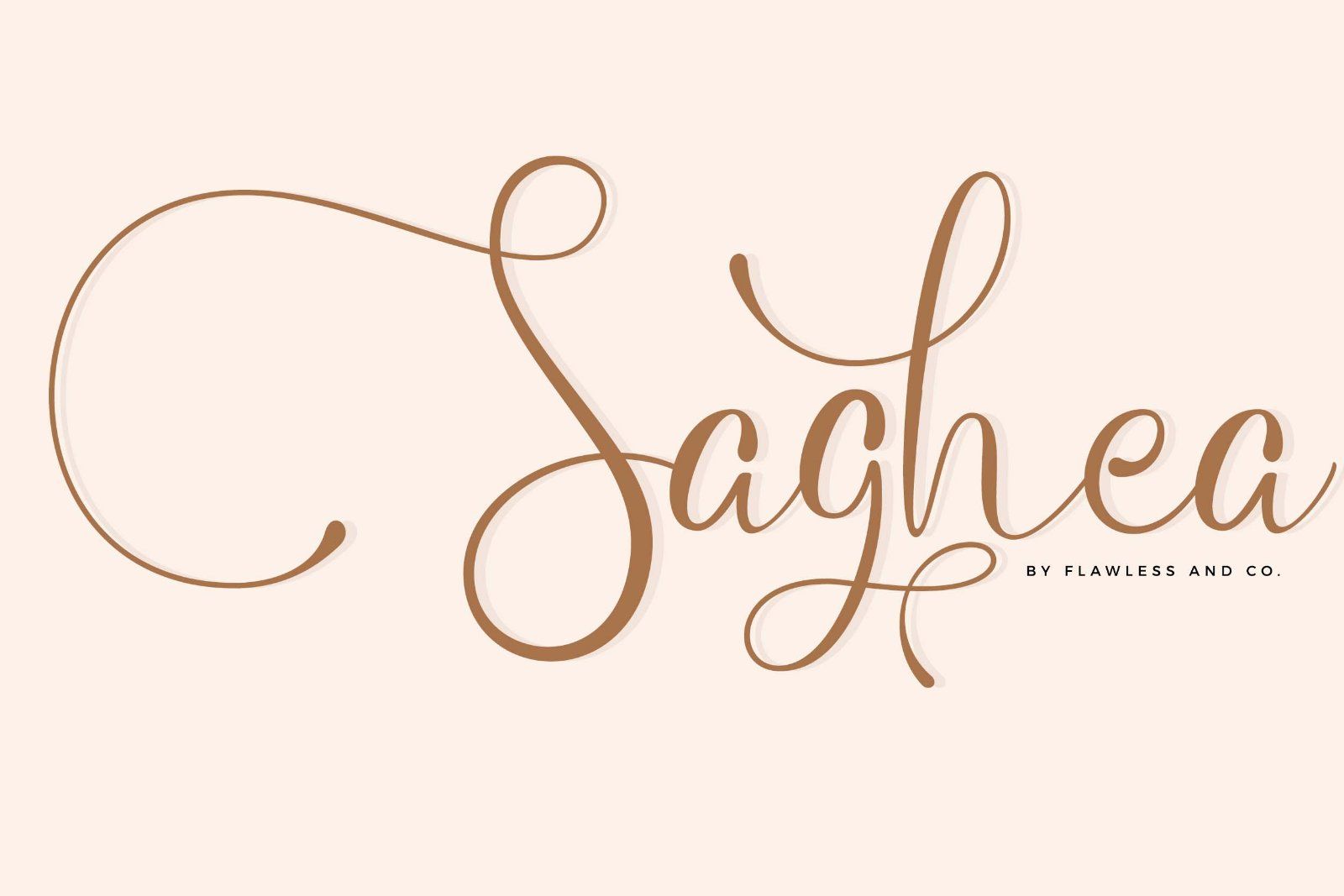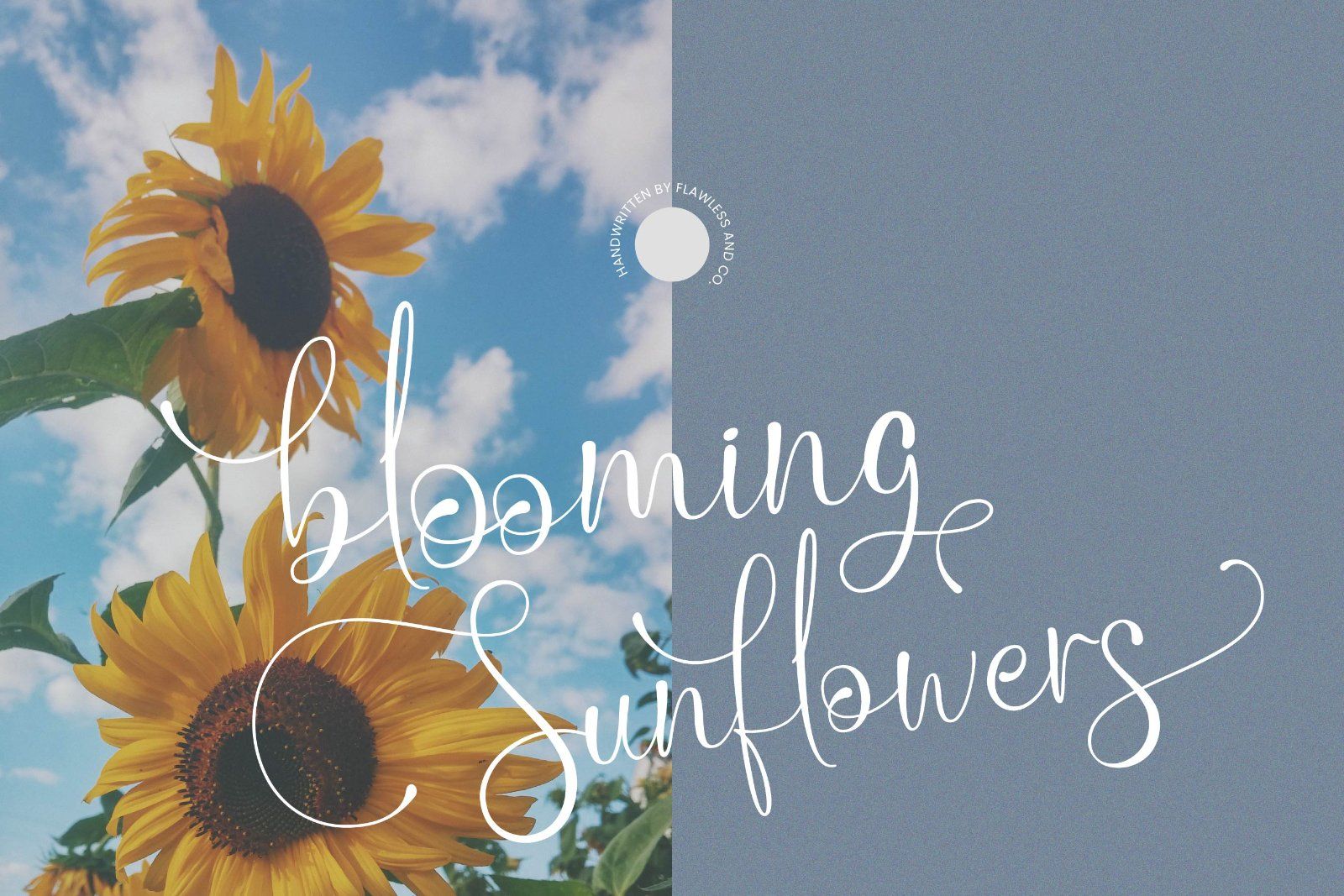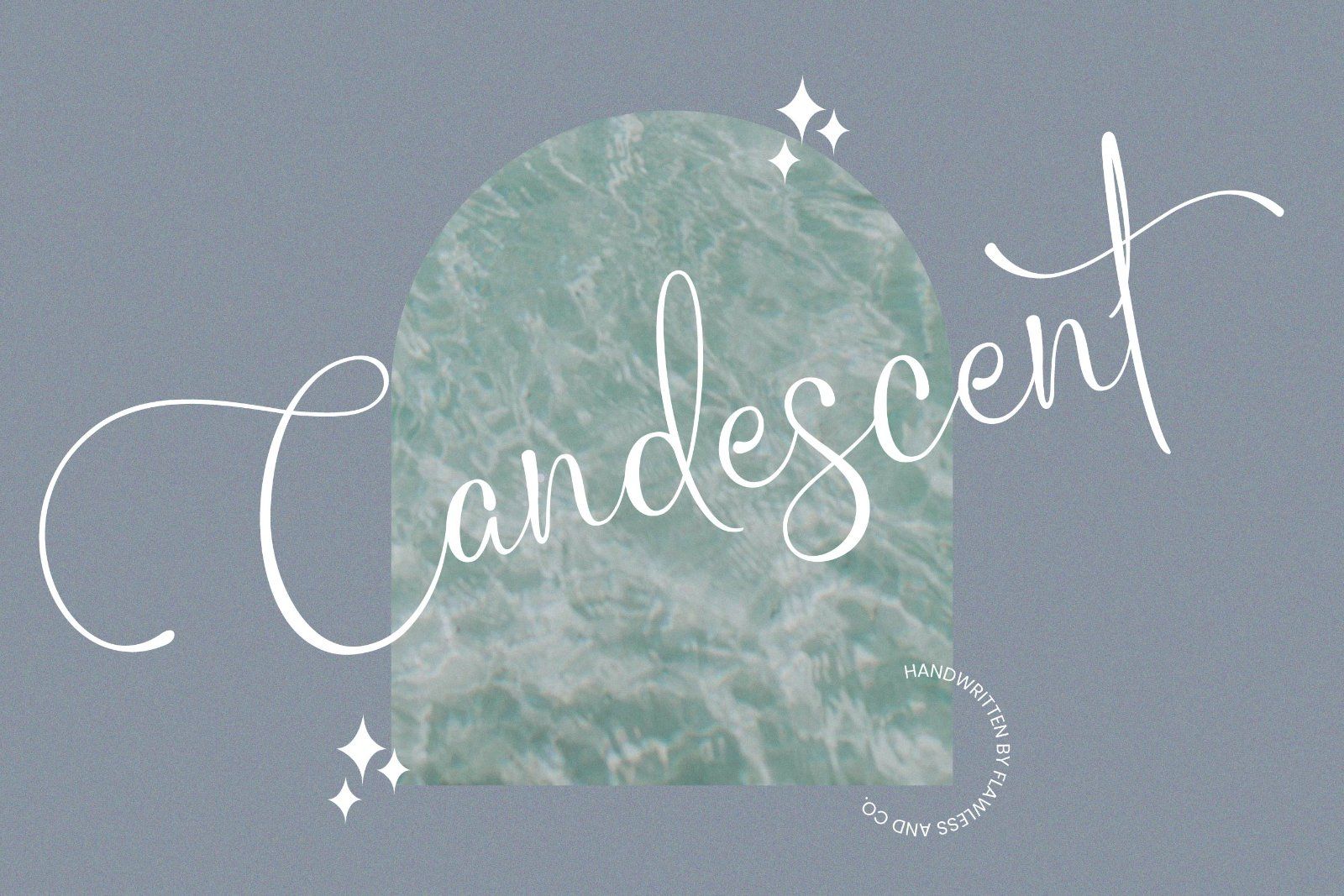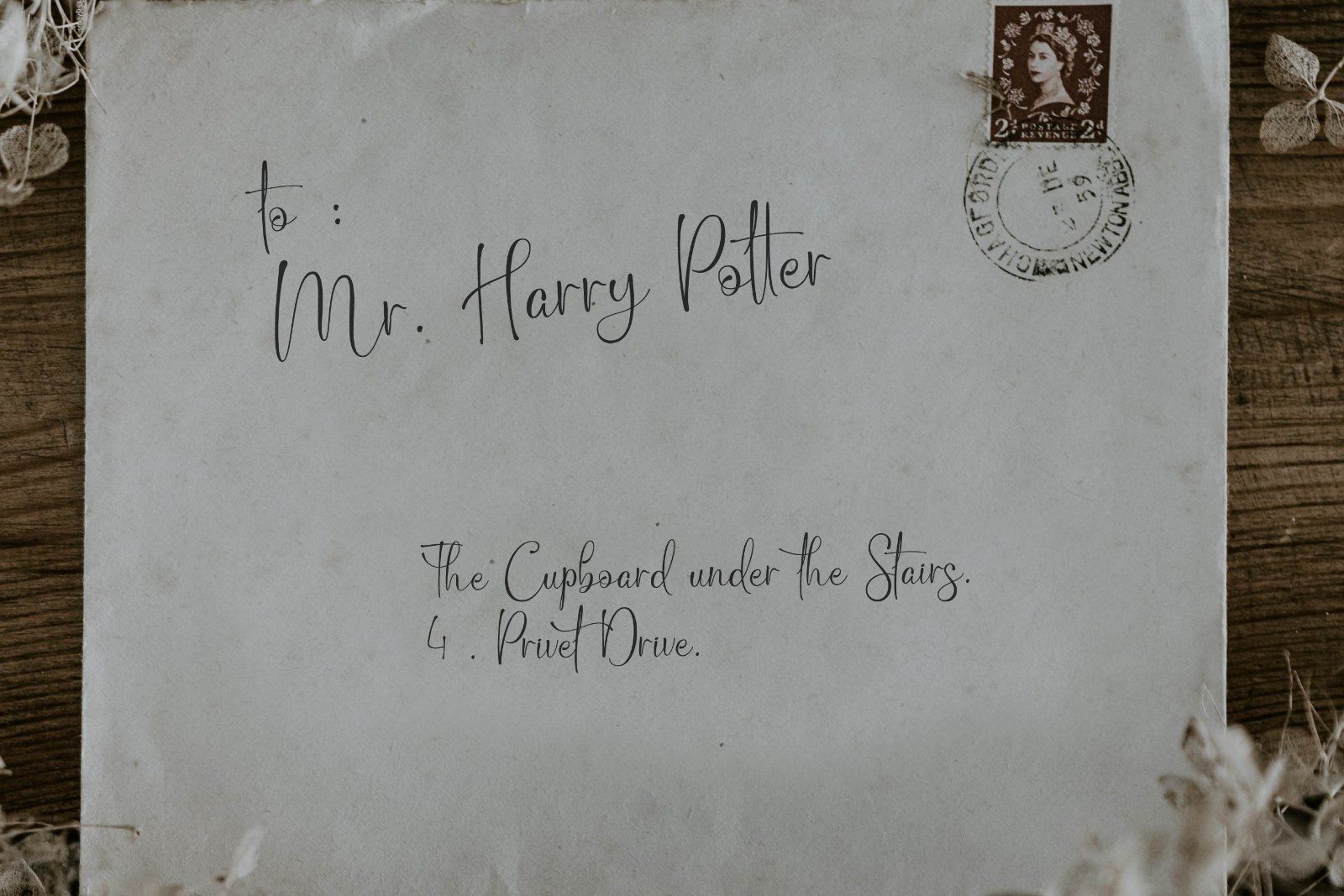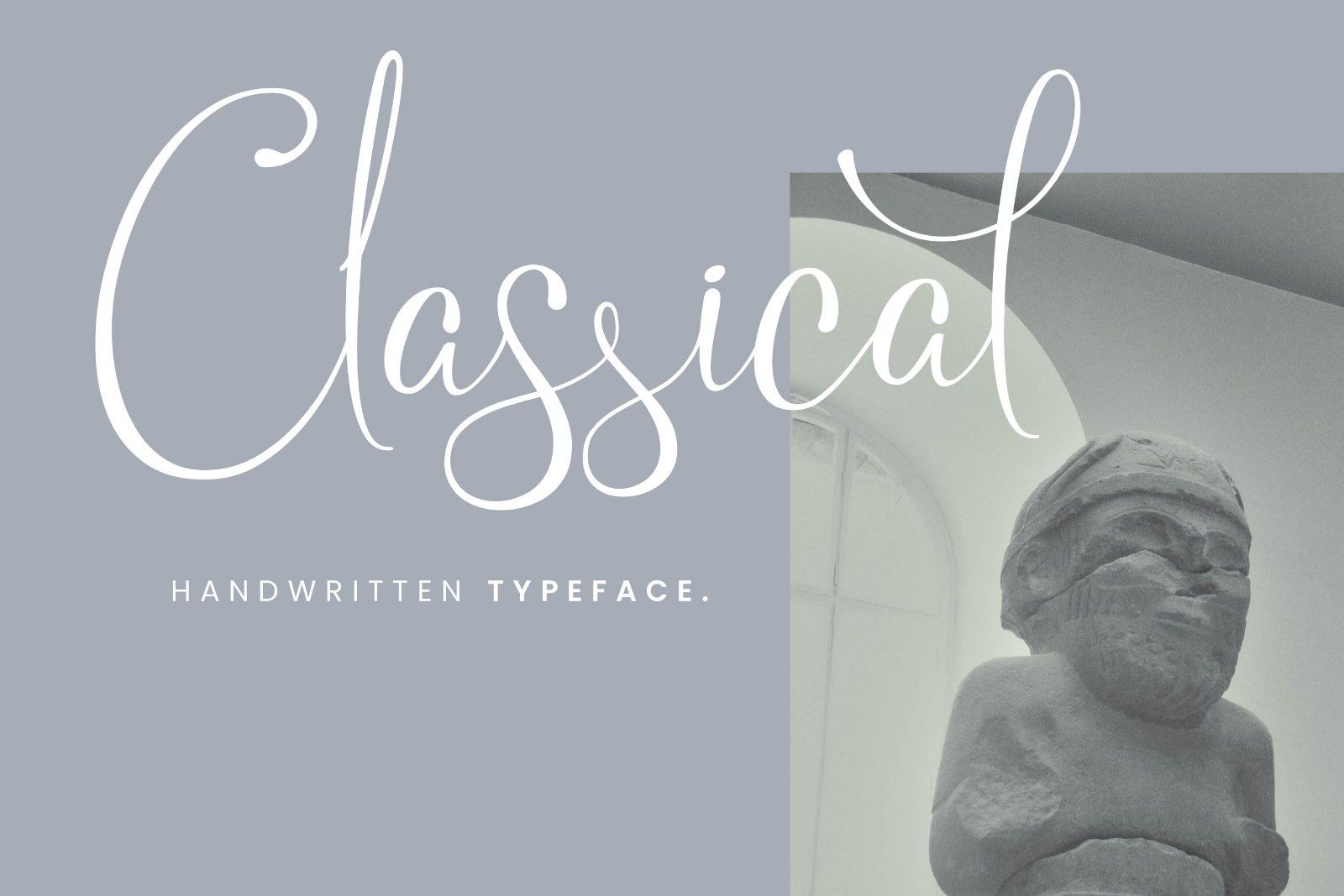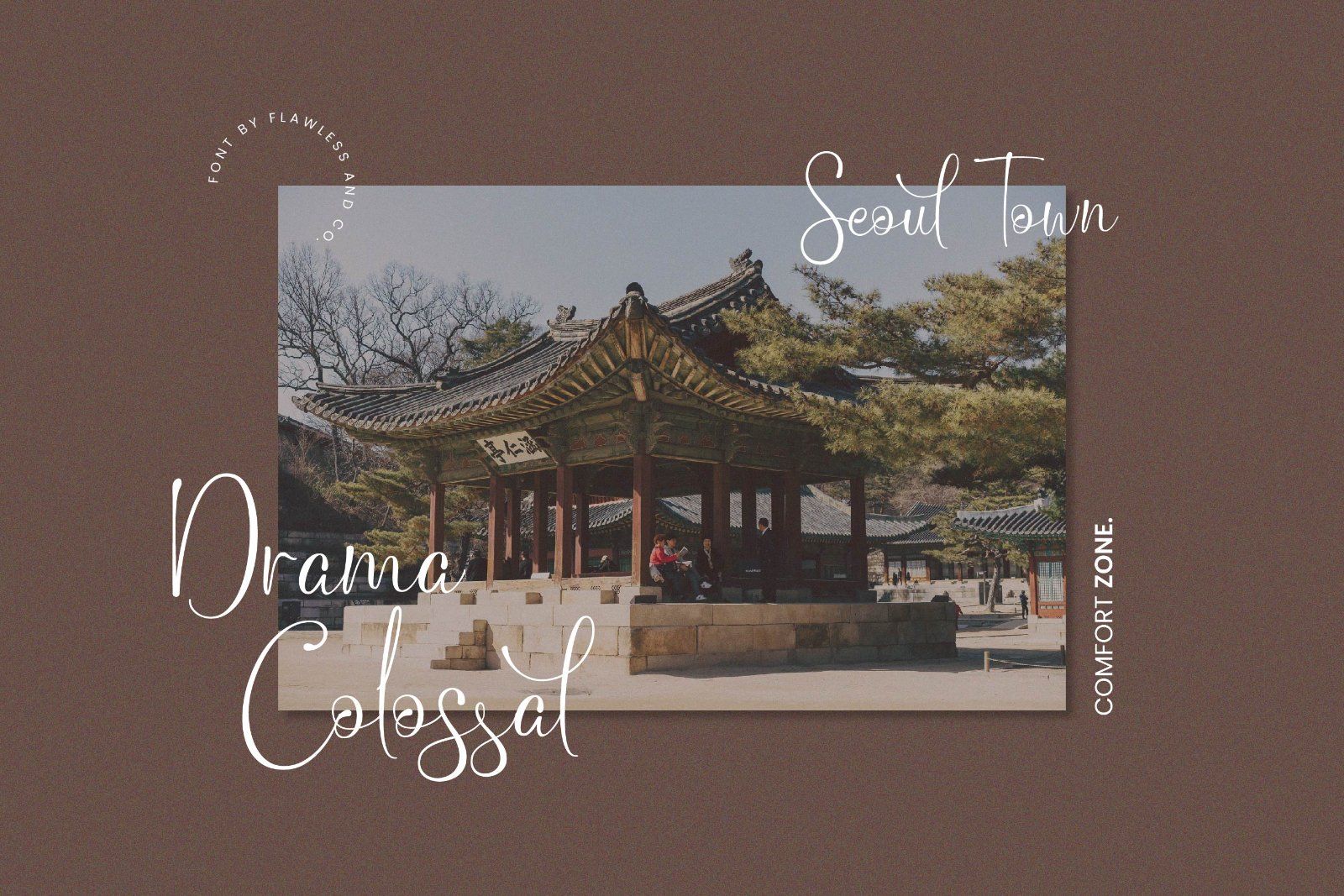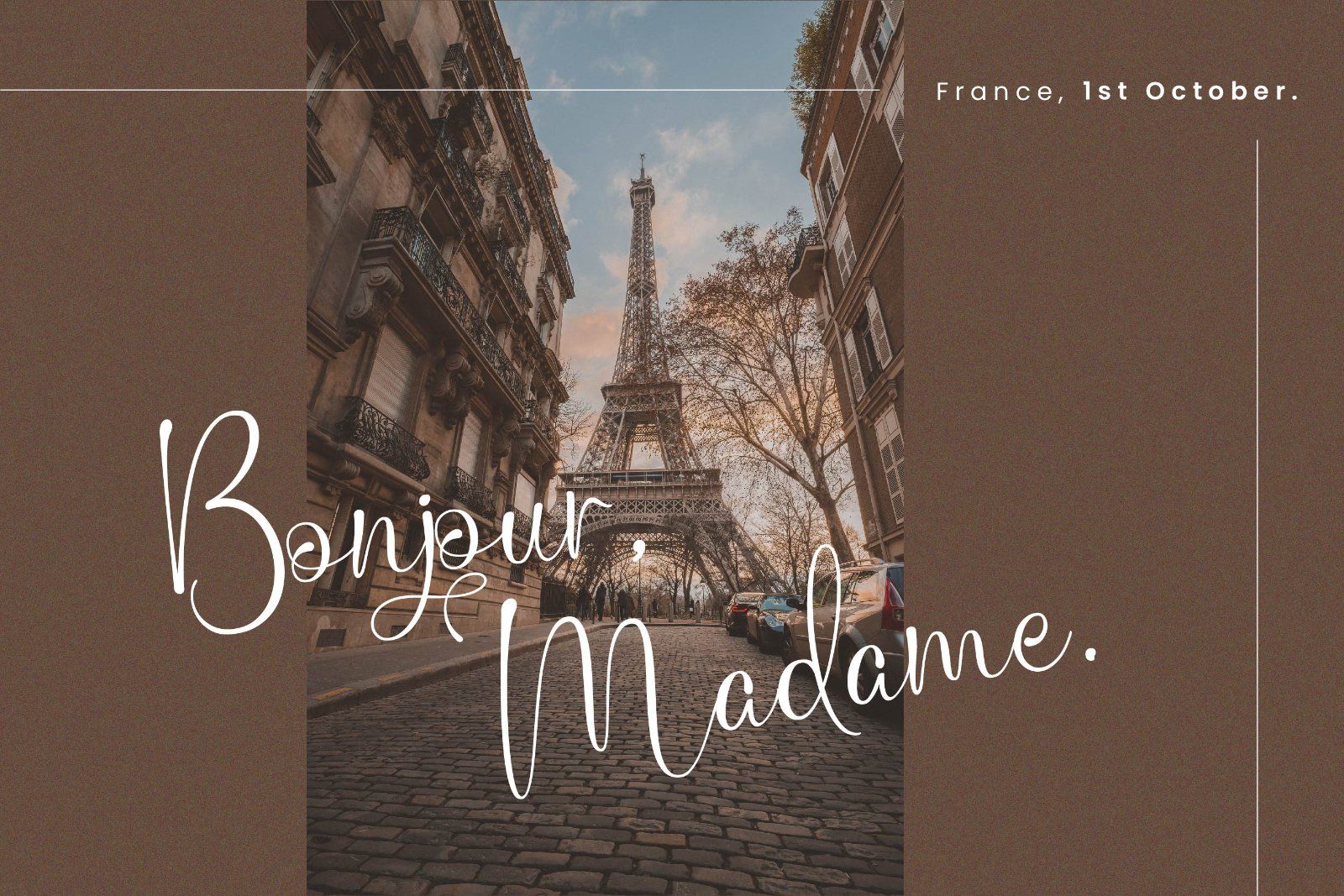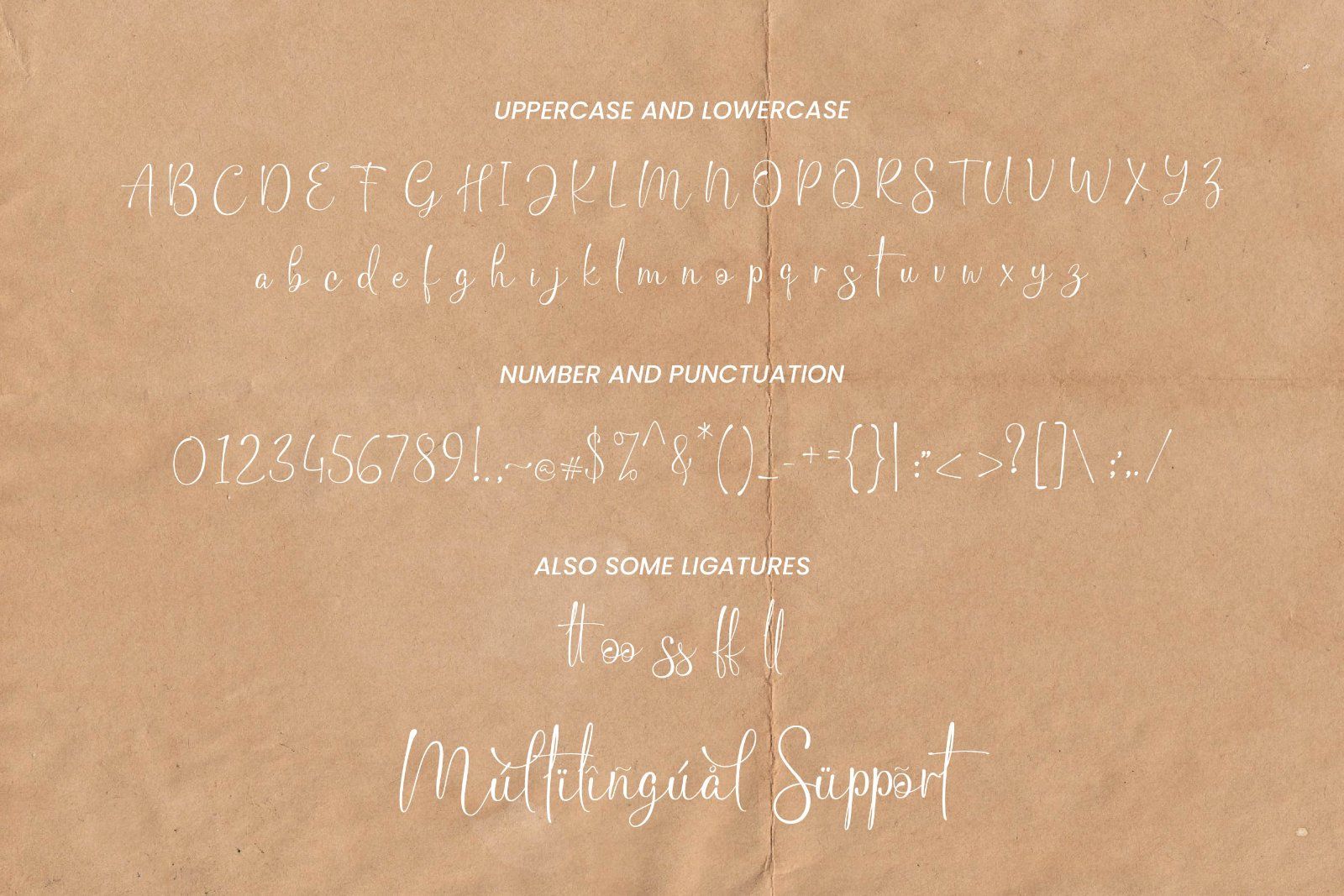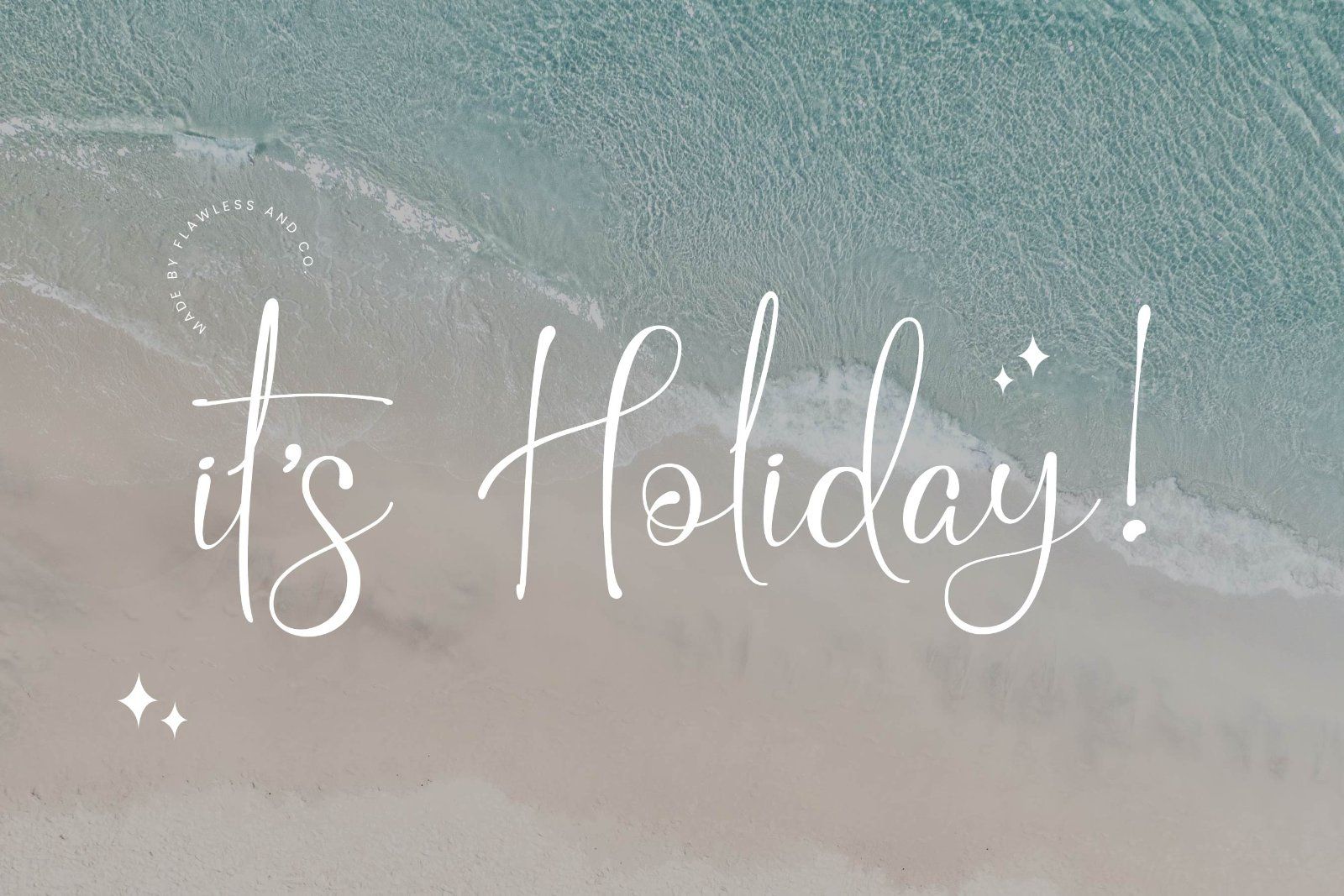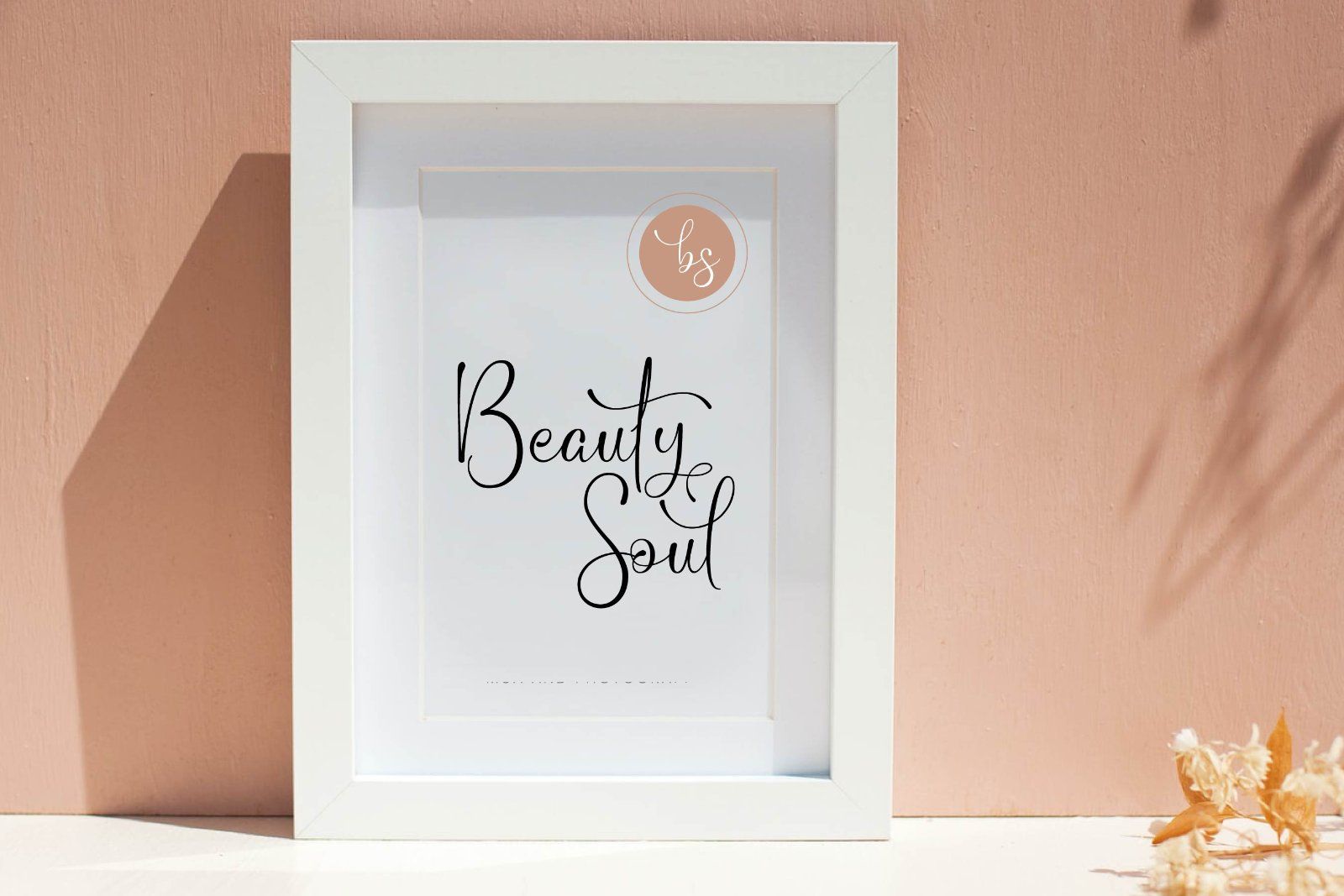
Saghea is an elegant handwritten font that blends graceful flowing strokes with a soft and sophisticated personality. Featuring beautiful curves, extended swashes, and expressive letterforms, Saghea creates a luxurious yet natural handwritten feel that brings charm and individuality to every design.
• Uppercase alphabet A-Z
• Lowercase alphabet a-z
• Alternate Character
• Numbers 0-9
• Some punctuation